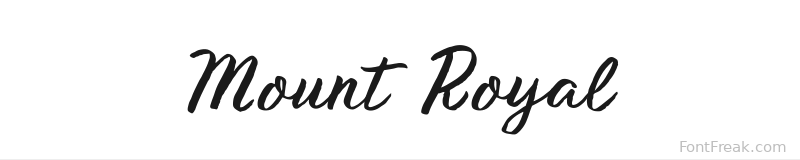
Mount Royal
About Mount Royal
The Mount Royal font by BLKBK Fonts is an elegant script typeface that exudes a sense of sophistication and charm. As a display font, it showcases an artistic flair that draws attention and captivates its audience. This font features a smooth, flowing style with moderate stroke weight and subtle contrast, allowing for both legibility and visual appeal. The graceful curves and loops enhance its handwritten quality, making it an ideal choice for creative projects that require a personal touch.
The Mount Royal font is particularly well-suited for wedding invitations, where its romantic aesthetic can beautifully convey the essence of love and celebration. It also shines in branding materials, providing a distinctive look for boutique shops or artisanal products. Additionally, the font is perfect for restaurant menus, where its stylish appearance can elevate the dining experience and entice patrons. Graphic designers will find it useful for creating eye-catching posters or promotional materials, as its unique style can help stand out in crowded visual spaces.
Targeting small business owners, content creators, and graphic designers alike, the Mount Royal font offers versatility across various applications while maintaining an air of elegance. Its freeware license allows for easy access, making it an attractive option for those looking to enhance their projects without incurring additional costs.
What truly sets the Mount Royal font apart is its combination of elegance and artistic expression, making it a standout choice for those seeking to add a touch of sophistication to their work. With the Mount Royal font free download, you can effortlessly incorporate this beautiful typeface into your next project and make a lasting impression.